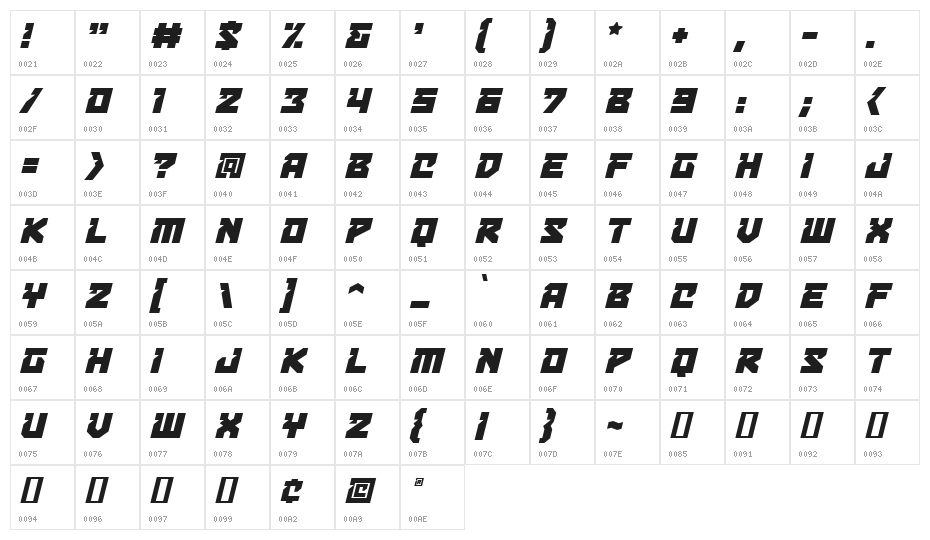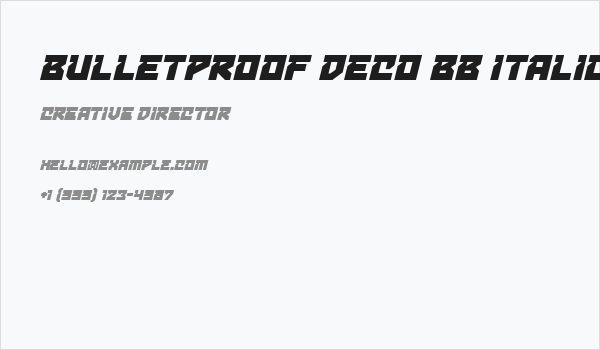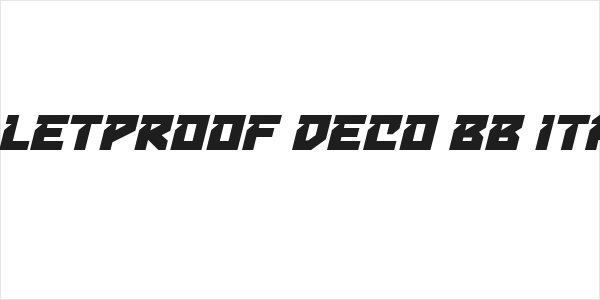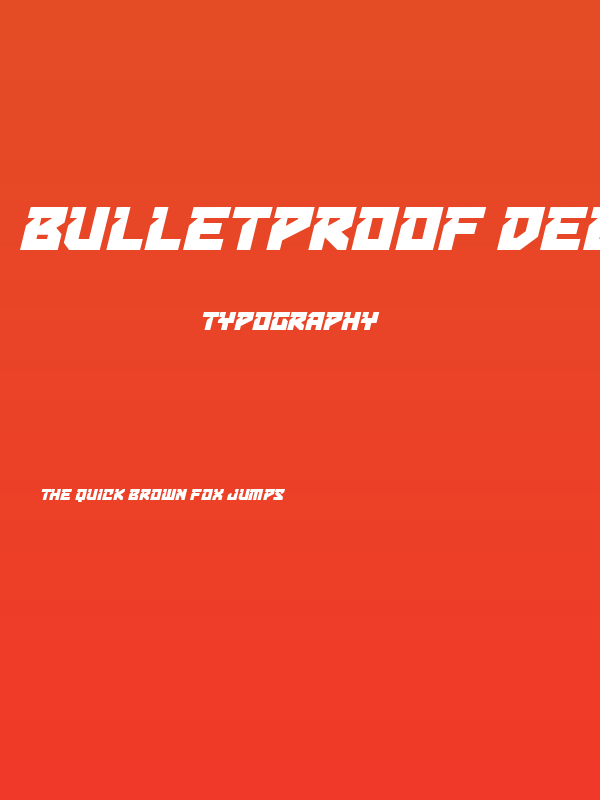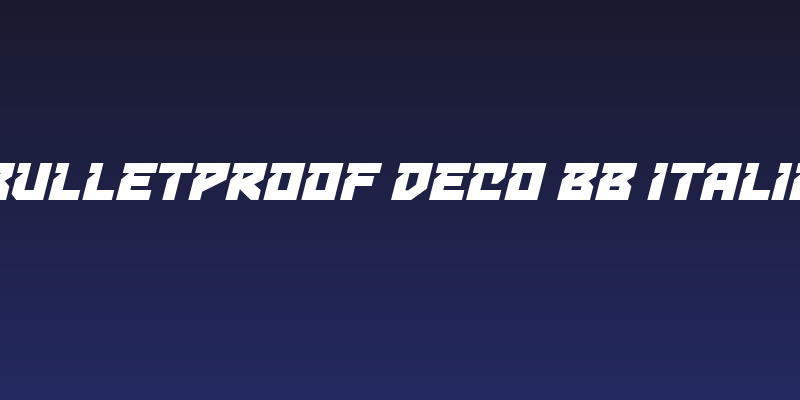
Bulletproof Deco BB Italic Font
Bulletproof Deco BB Italic Description
This font features a bold, angular design with a strong geometric influence, characterized by sharp edges and a dynamic, italicized slant. The uppercase and lowercase letters maintain a consistent style, with each character exhibiting a unique, futuristic flair. The numbers and special characters are equally bold, contributing to the font's overall cohesive appearance. Its distinct style makes it ideal for projects that require a modern and edgy aesthetic.
| Proposed Projects | Ideal for video game titles, movie posters, branding for tech companies, and any project needing a modern, edgy look. |